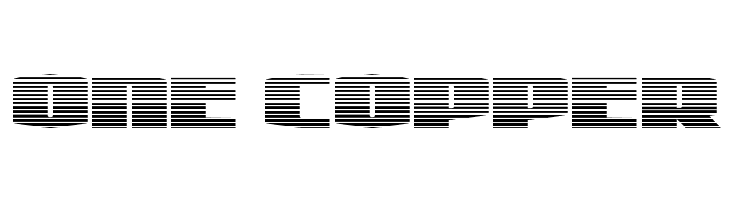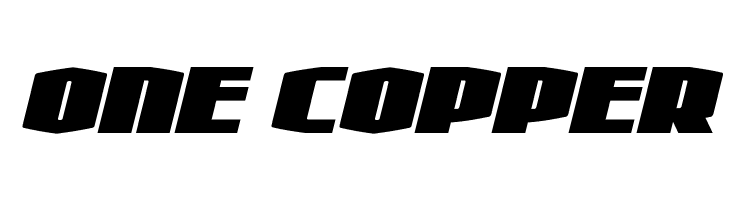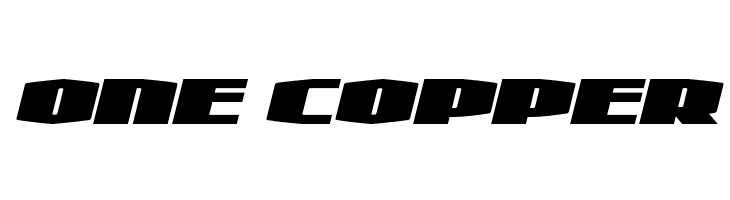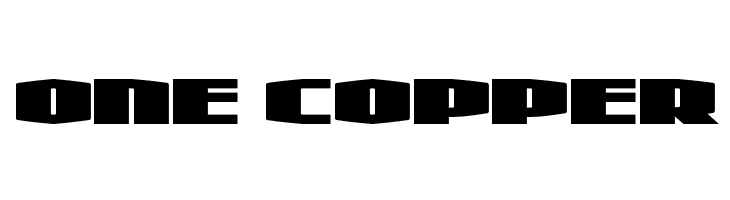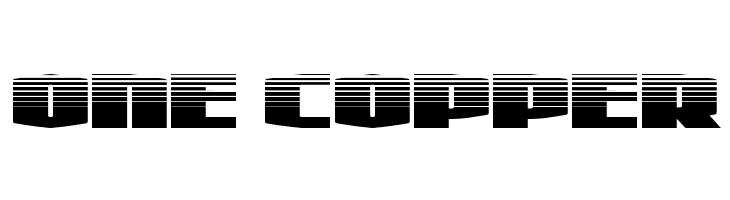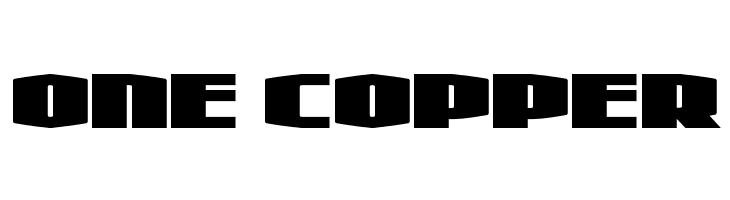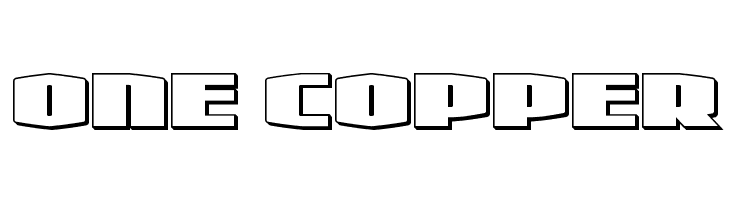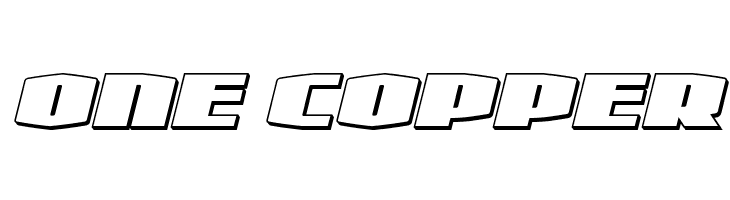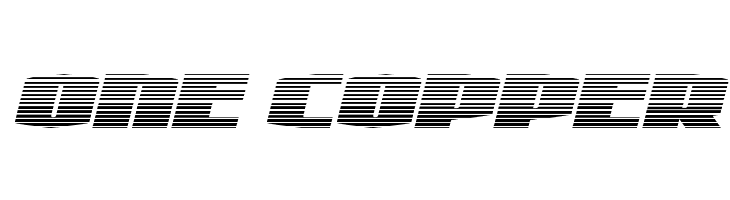
A bold, geometric font with strong, block-like characters and a modern aesthetic.
A bold, geometric font with angular and futuristic design elements.
A bold, 3D geometric font with a futuristic style.
A bold, 3D italic font with a futuristic and dynamic style.
A bold, condensed font with a geometric and modern style.
A bold, condensed, and italicized font with a futuristic and geometric style.
A bold, geometric font with a futuristic and striking design.
A bold, expanded, and italicized font with a futuristic and dynamic style.
A futuristic, line-based font with a digital gradient effect.
A futuristic, gradient, italic font with a dynamic and modern design.
A bold, futuristic font with a halftone effect and digital appearance.
A bold, italicized font with a futuristic halftone effect.